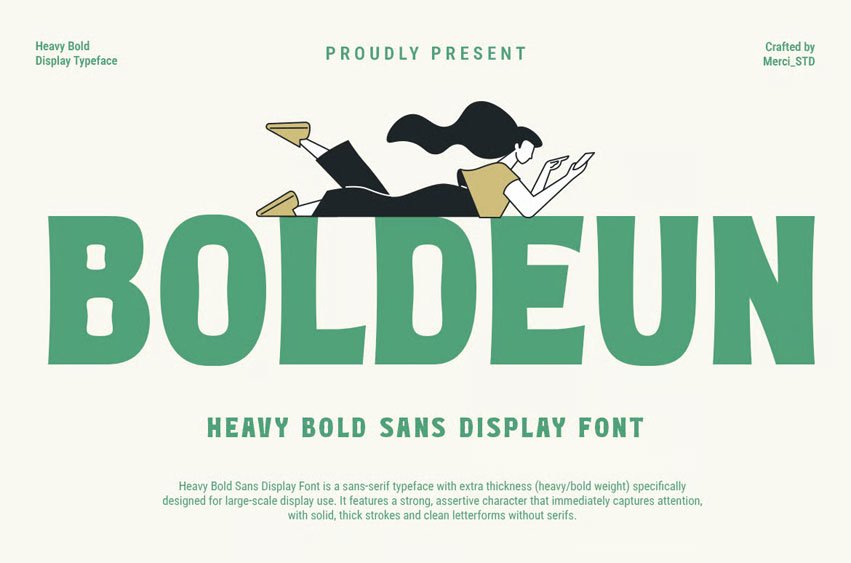
Boldeun Font
Boldeun Font is a strong and bold sans serif display font crafted for impactful headlines and branding. Its thick letterforms make it perfect for posters, advertising, and modern visual communication.
• Uppercase Letters
• Numbers & Punctuation
• Ligature & Alternate Character
• Unique Hand-Drawn Style